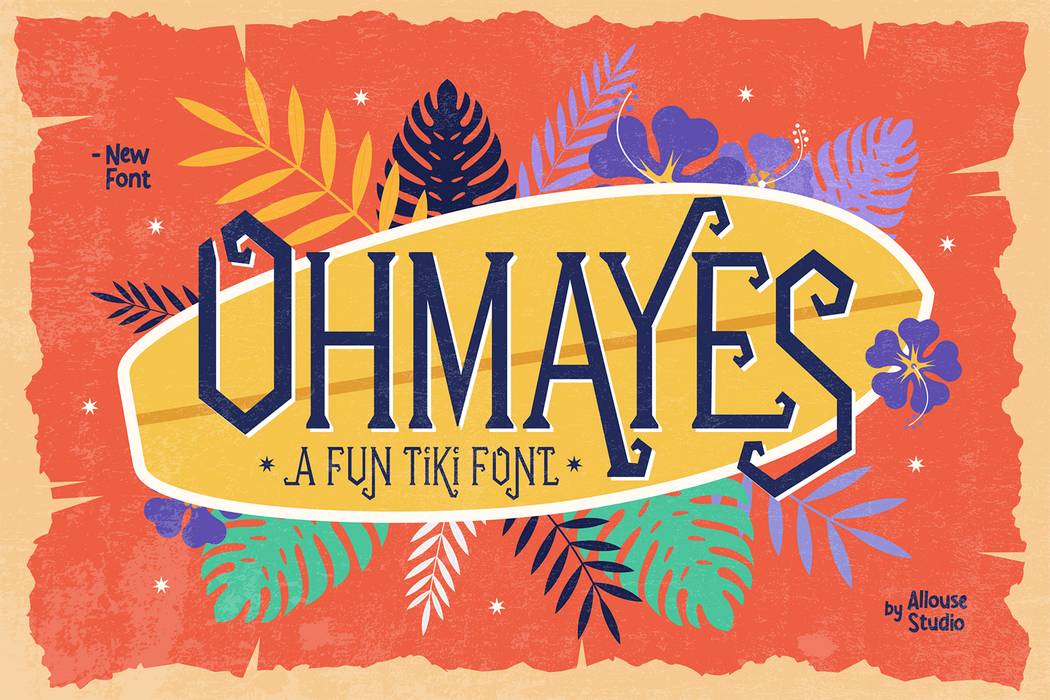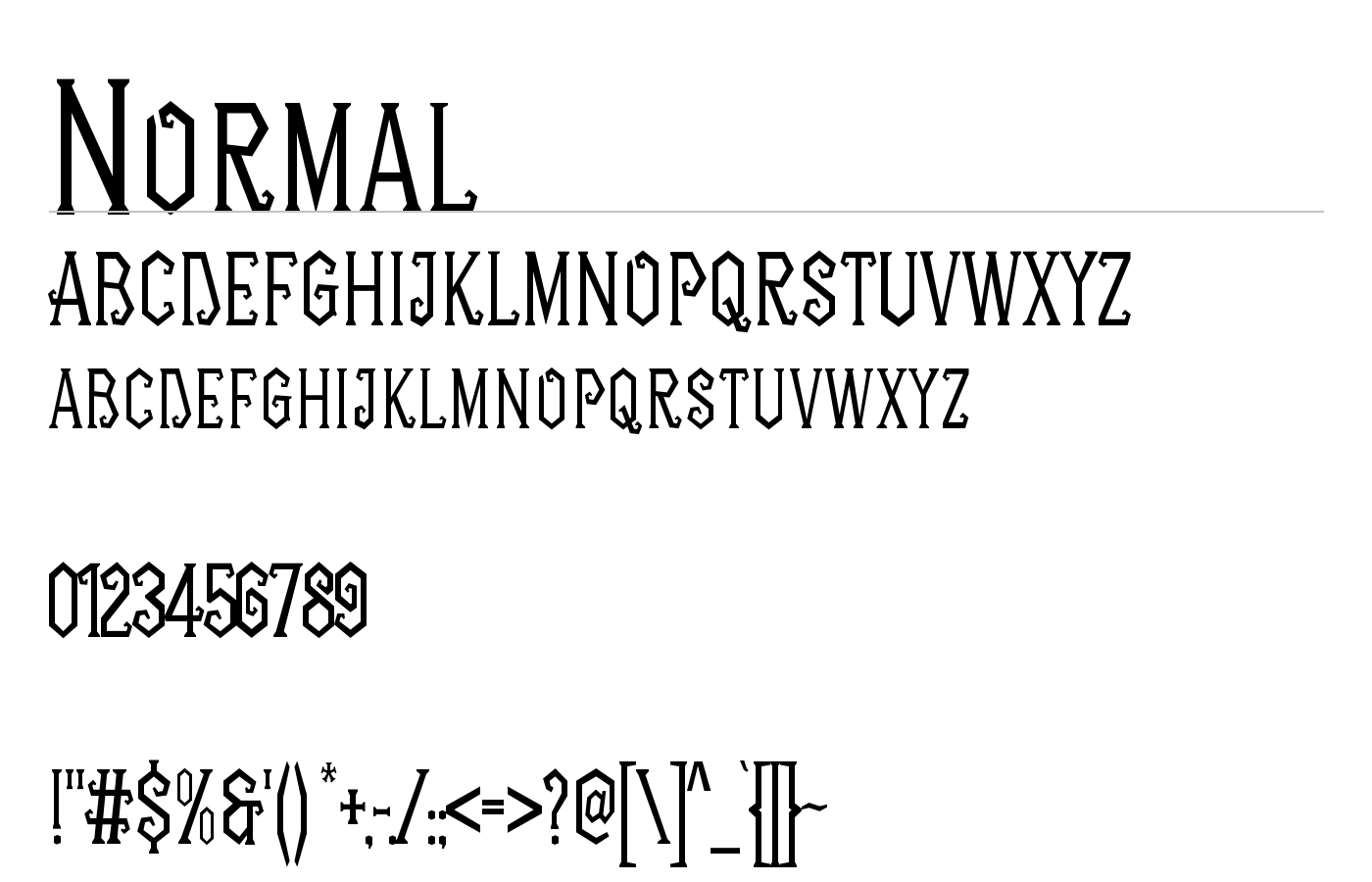
Ohmayes Font is a unique, decorative serif typeface with a tall, narrow structure and high contrast between thick and thin strokes. Its intricate, slightly gothic details and sharp, angular serifs give it a vintage yet strikingly modern feel, making it perfect for attention-grabbing headlines, logos, or posters that aim to convey a bold, creative personality. This font works well in designs that need a touch of drama and artistic flair while maintaining clear readability.
Ohmayes Font